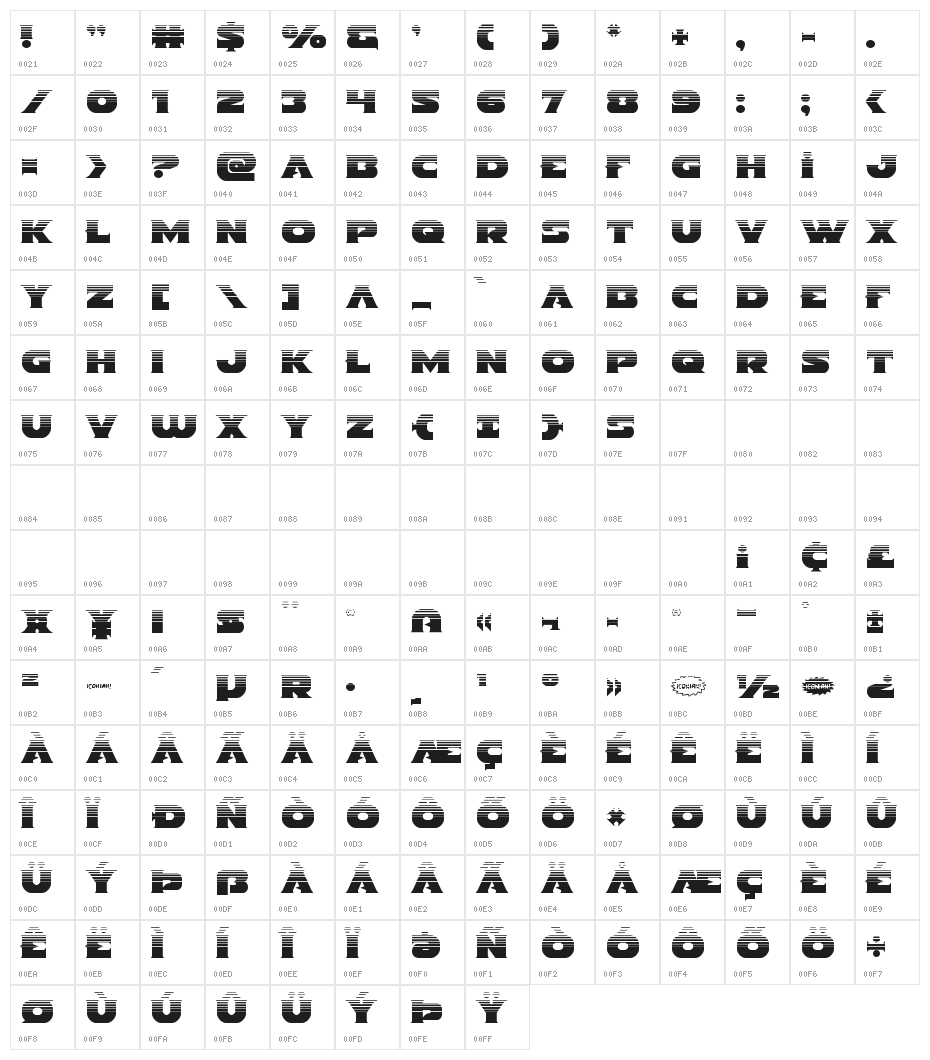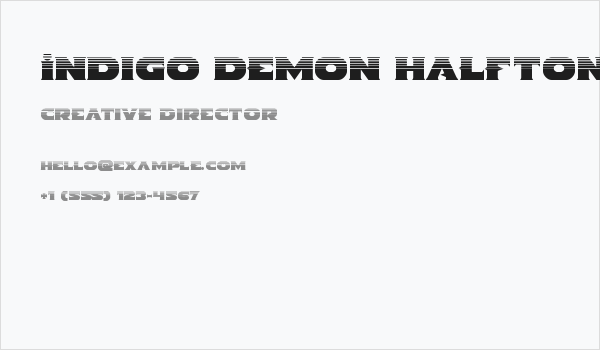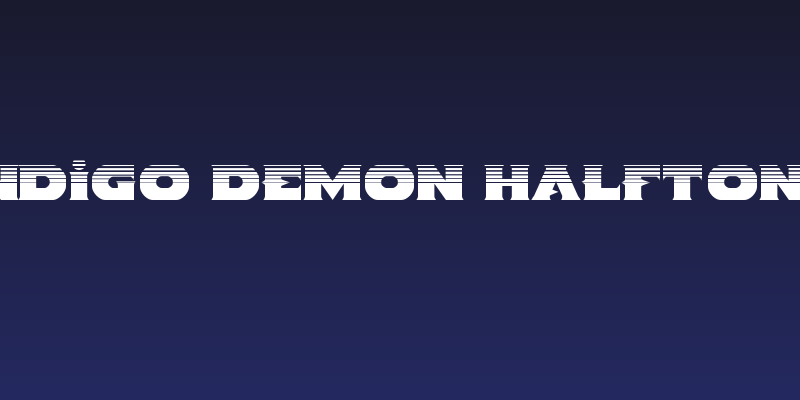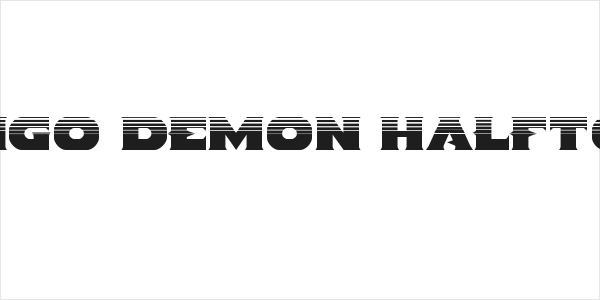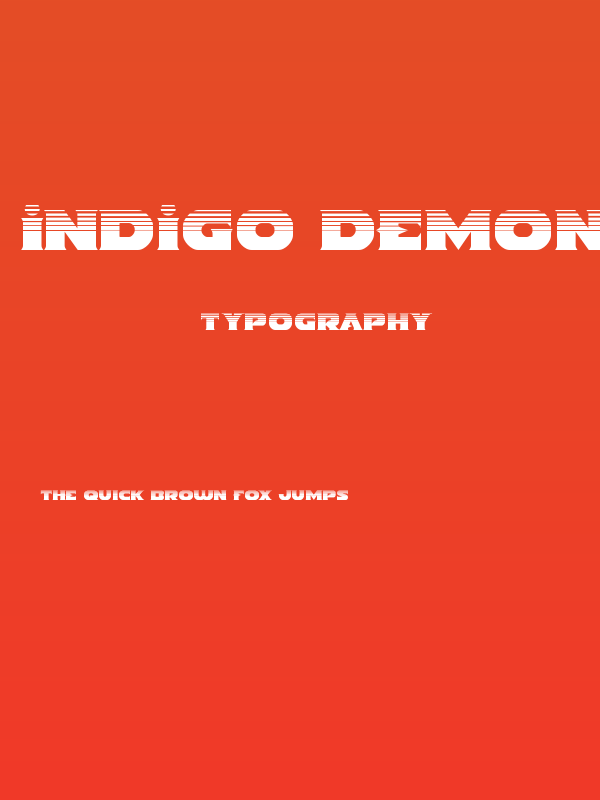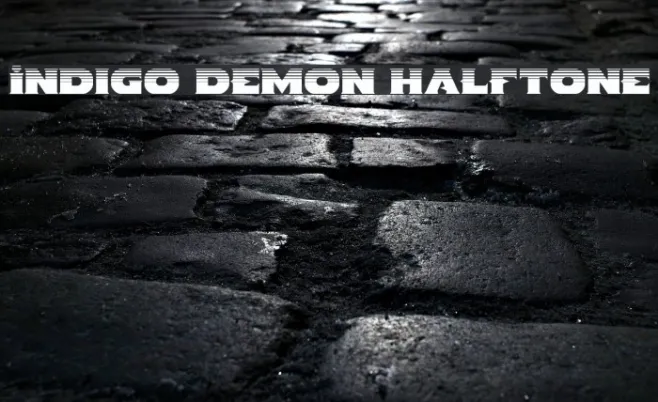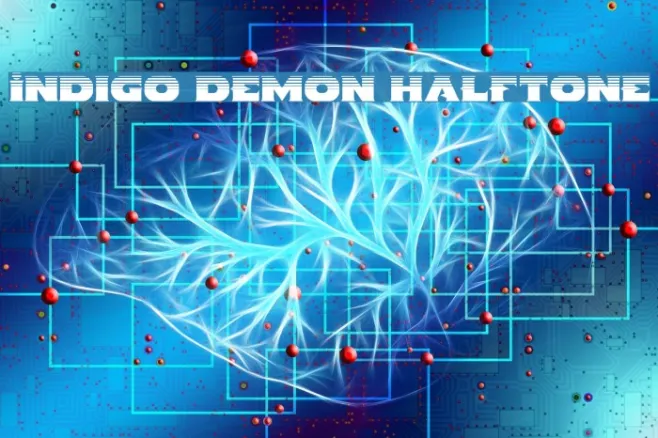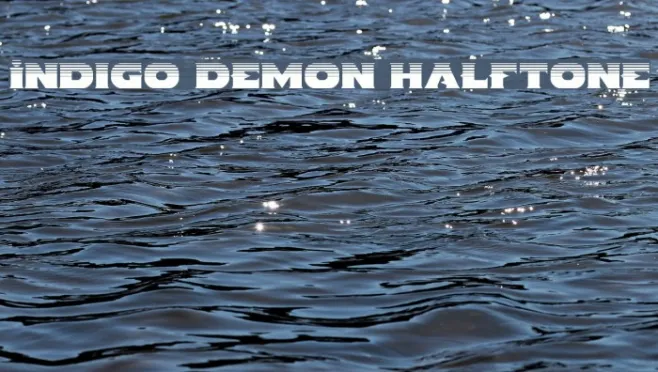
Indigo Demon Halftone Font
Indigo Demon Halftone Description
This font features a bold, striking design with a halftone effect that gives it a unique, textured appearance. The characters are constructed with a series of horizontal lines that create a sense of movement and depth. The uppercase and lowercase letters maintain a consistent style, with sharp angles and a futuristic look. The numbers and special characters are equally bold, ensuring a cohesive appearance across all text. This font's distinct style makes it ideal for projects that require a modern and edgy aesthetic.
| Proposed Projects | Ideal for posters, album covers, video game graphics, and branding that requires a modern, edgy look. |